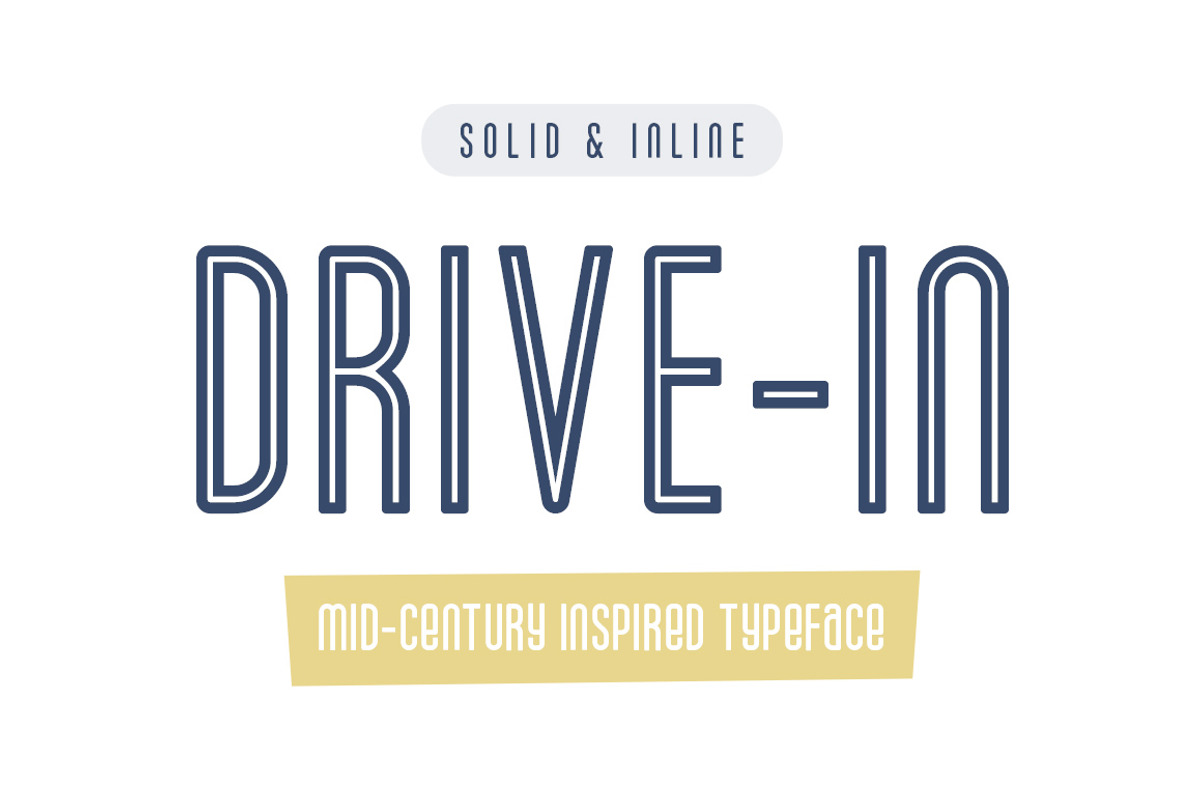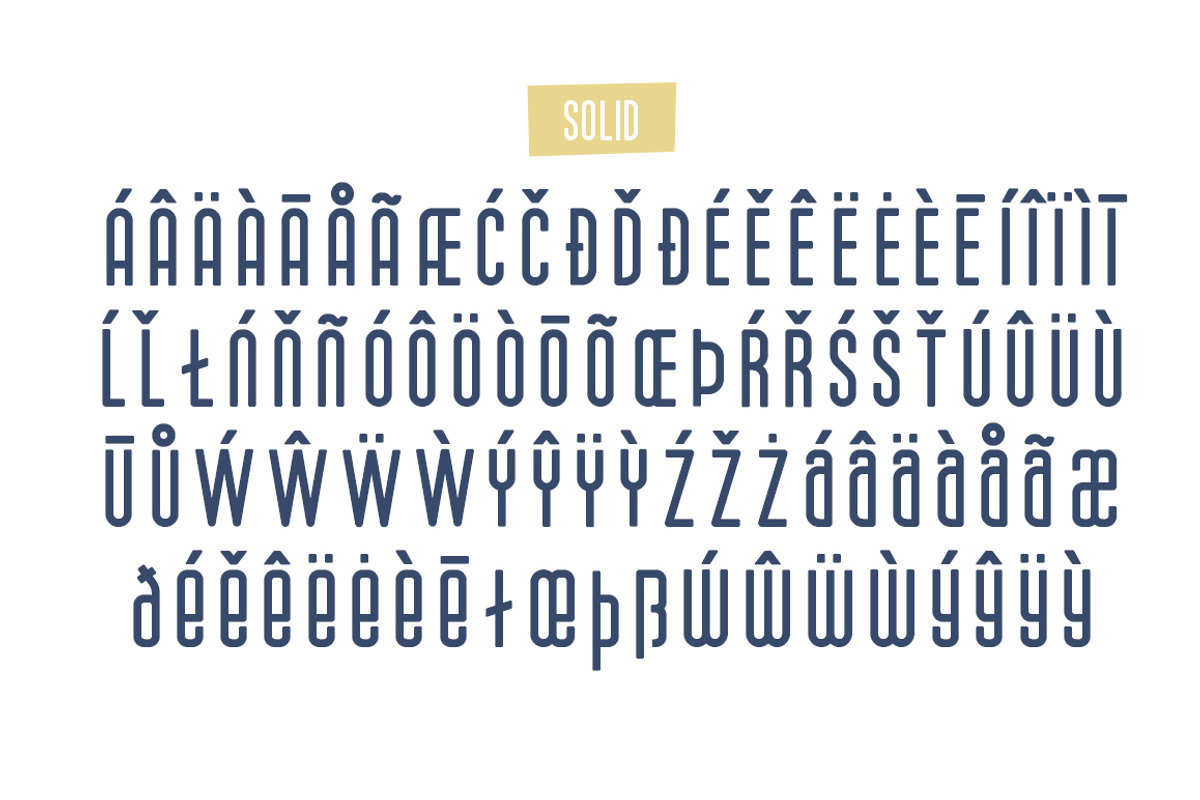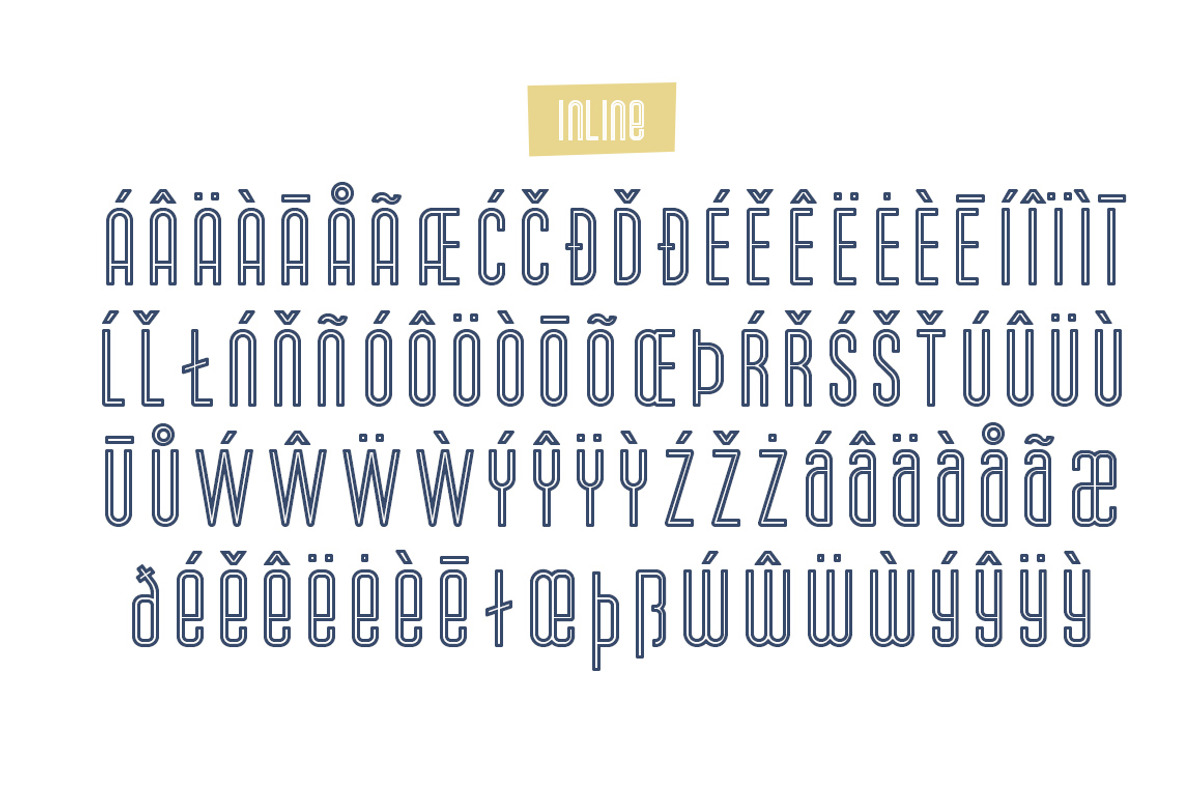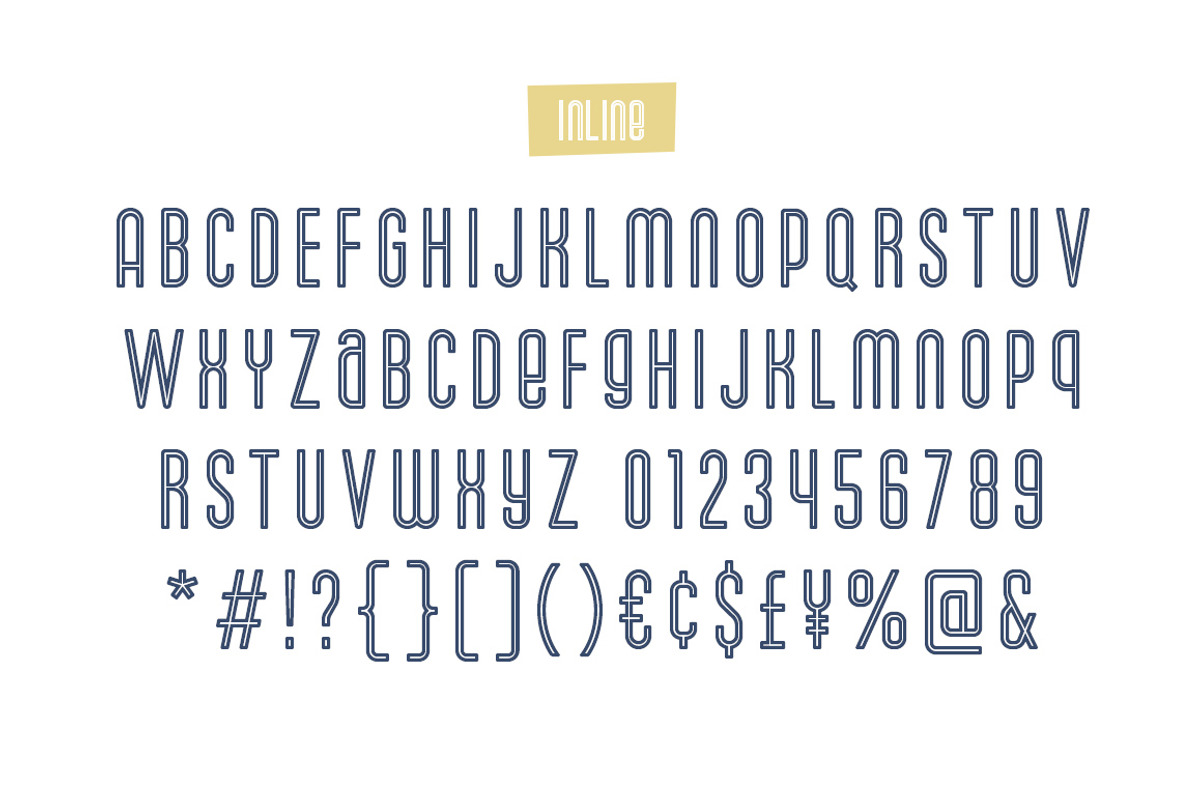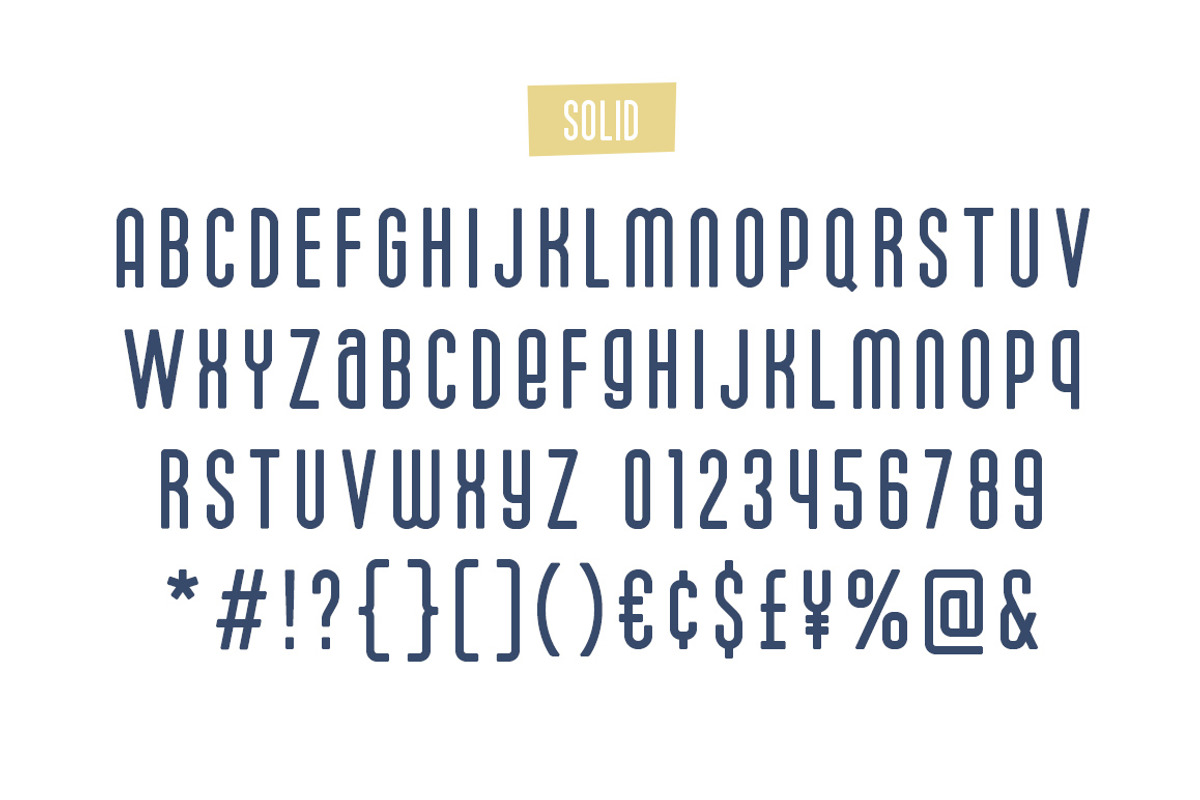
Drive-in Mid-Century Font
Drive-in is a new tall condensed typeface inspired by the mid-century design movement. It combines typical industrial style condensed sans-serif letterforms with the style and character of the mid-century design era. This font is supplied in two variations, solid and inline.
Drive-in features all uppercase letters and pseudo-lowercase letters with variations for a, e, g, q, w and y. It also has all common symbols/punctuation and extensive language support (please see the last preview image for which european characters are included)